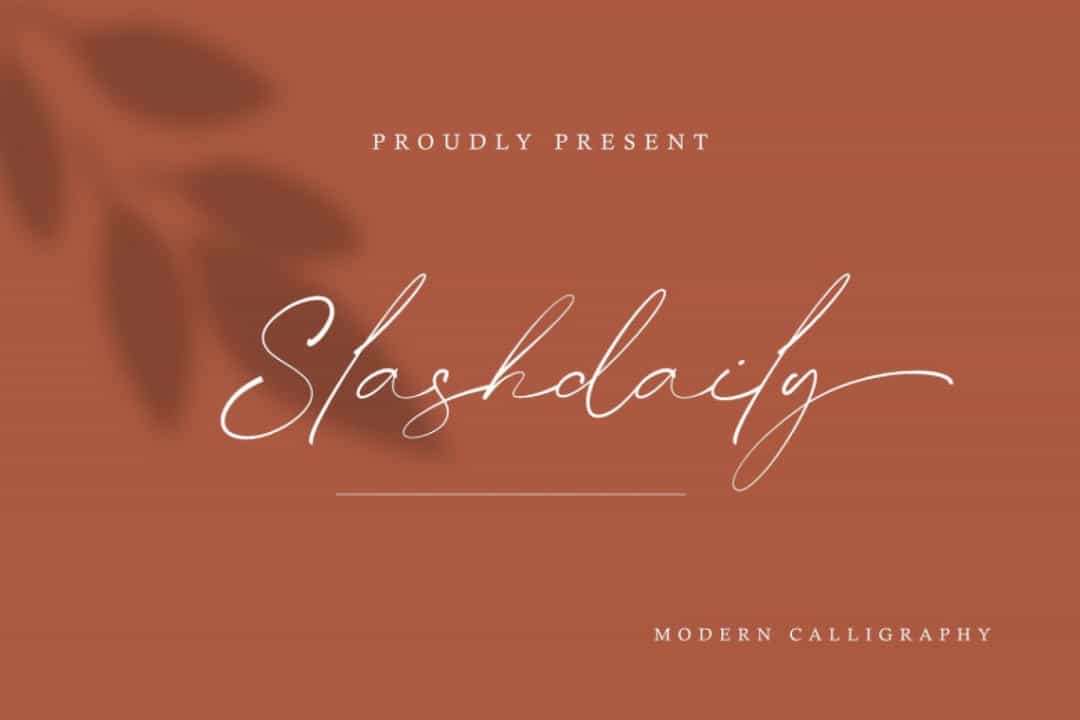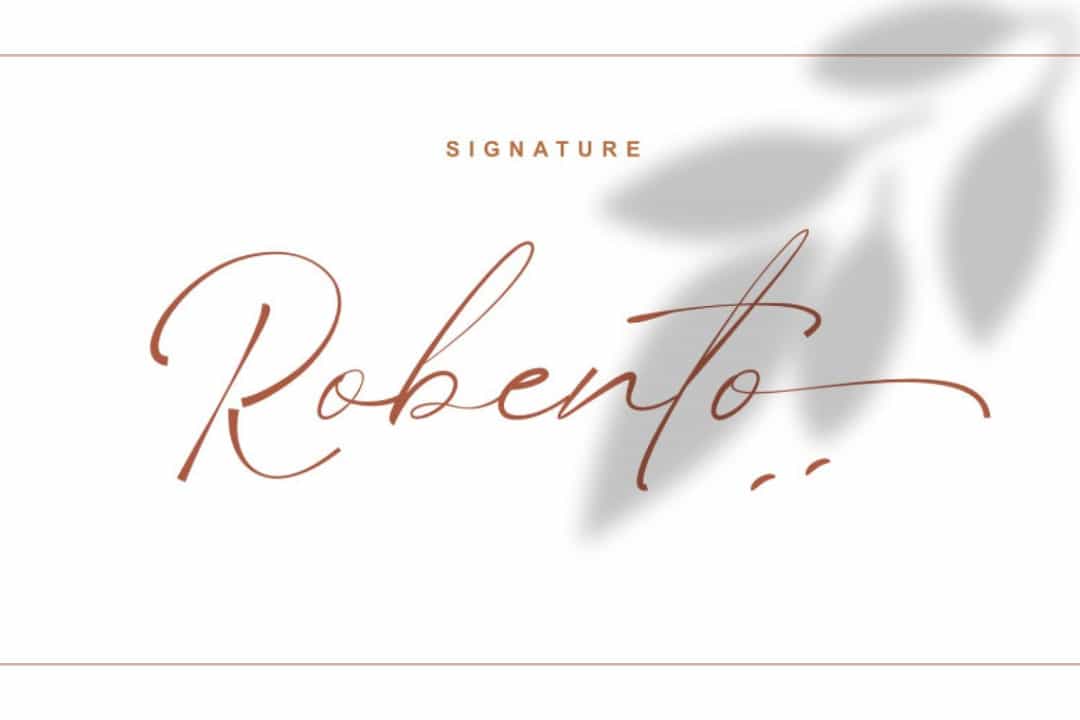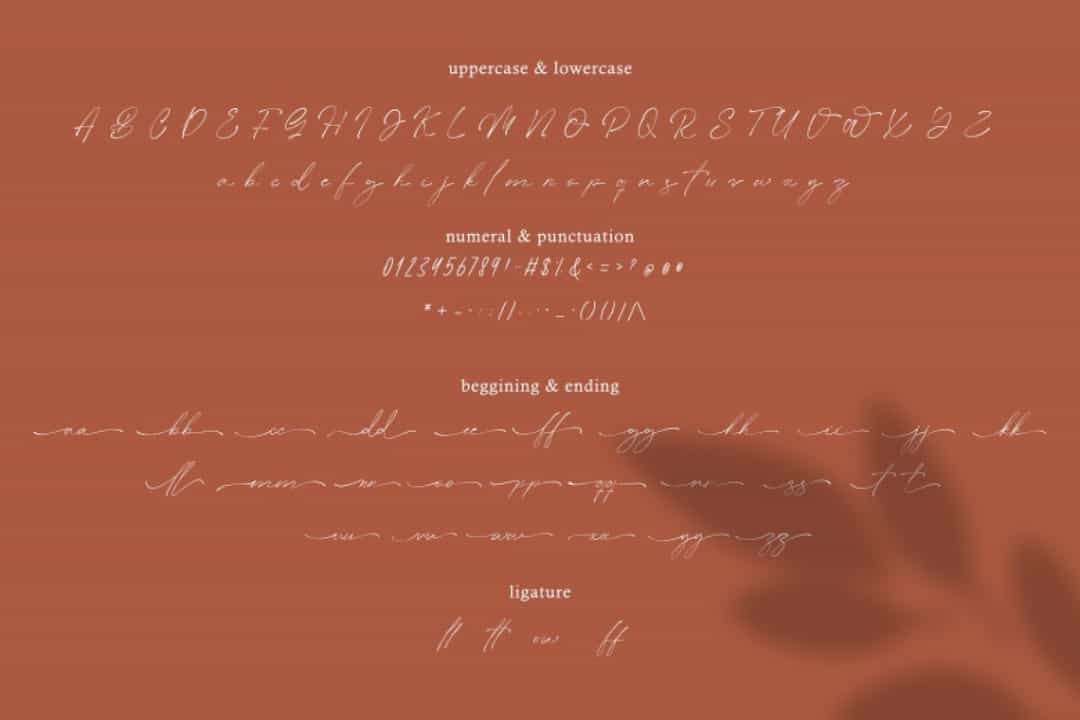
Slashdaily is a stunning handwritten font with elegant style. Ideal for branding purposes, wedding logo designs and advertisements, social media posts packaging for products, product designs labels photos watermark invitations stationery projects that require handwriting skills as well as any project that necessitates handwriting skill.